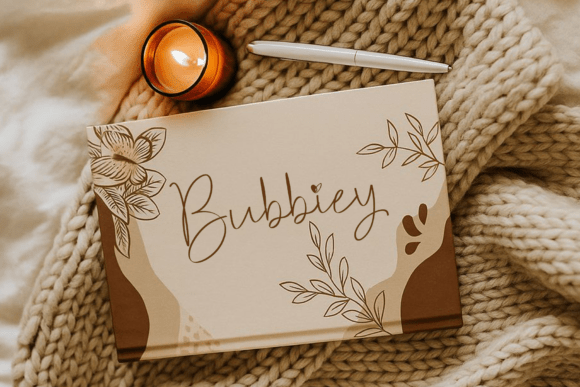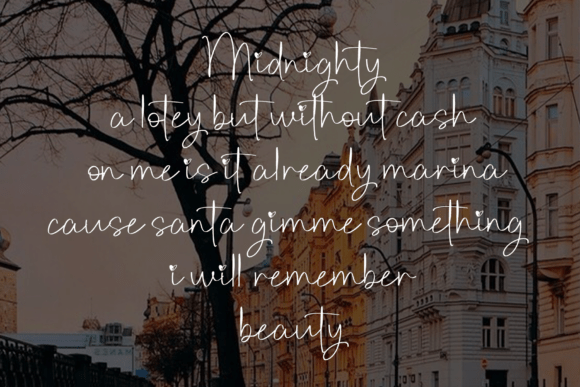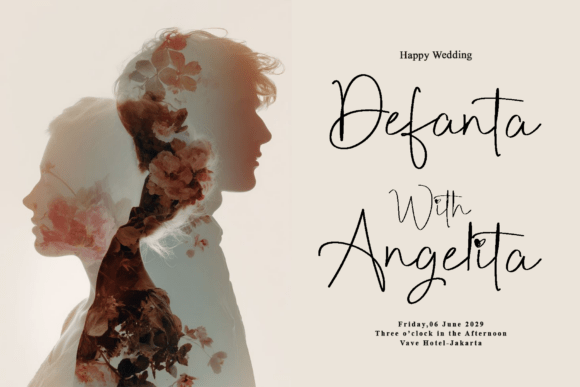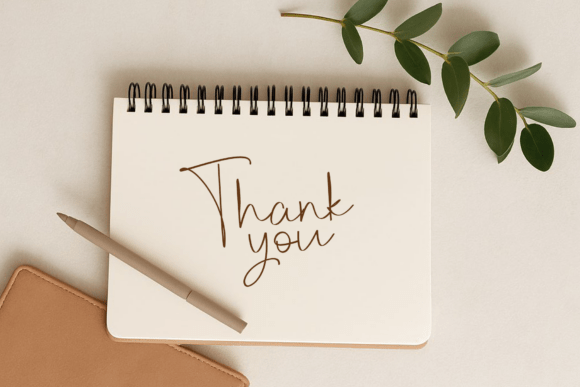
Introducing Handwritten Saturday Font: A Timeless Choice for Designers and Crafters
Are you tired of using generic fonts that lack personality and flair? Look no further than Handwritten Saturday Font, a lovely and timeless handwritten font that’s perfect for creating eye-catching logos, branding, and quotes. With its unique and beautiful touch, this font is sure to make your design come alive!
The Beauty of Handwritten Saturday Font
Handwritten Saturday Font is a carefully crafted font that boasts a distinctive, hand-written feel. Every letter has been meticulously designed to showcase a unique and beautiful touch, making it perfect for designers and crafters looking to add a personal touch to their work. Whether you’re creating a logo, branding materials, or quotes, this font is sure to impress.
Why Choose Handwritten Saturday Font?
So, what sets Handwritten Saturday Font apart from other fonts on the market? Here are just a few reasons why designers and crafters love this font:
- Unique and Beautiful Touch: Every letter in Handwritten Saturday Font has been carefully crafted to showcase a unique and beautiful touch, making it perfect for creating eye-catching designs.
- Timeless Appeal: Unlike trendy fonts that quickly go out of style, Handwritten Saturday Font has a timeless appeal that will ensure your designs remain stylish for years to come.
- Versatility: Whether you’re creating logos, branding materials, quotes, or other designs, Handwritten Saturday Font is the perfect choice.
- Ease of Use: This font is easy to read and use, making it perfect for designers and crafters of all skill levels.
Handwritten Saturday Font is a versatile font that’s perfect for a wide range of design applications. Here are just a few ways designers and crafters can use this font:
- Logo Design: Create eye-catching logos that showcase your brand’s personality and style with Handwritten Saturday Font.
- Branding Materials: Use this font to create consistent branding across all your marketing materials, from business cards to brochures.
- Quote Design: Add a personal touch to your quotes and sayings with Handwritten Saturday Font.
- Crafting Projects: Use this font to add a personal touch to your crafting projects, from scrapbooking to card making.
Tips for Using Handwritten Saturday Font
To get the most out of Handwritten Saturday Font, here are a few tips to keep in mind:
- Use it Sparingly: While Handwritten Saturday Font is beautiful, it can be overwhelming if used too much. Use it sparingly to add a touch of personality to your designs.
- Pair it with Other Fonts: Experiment with pairing Handwritten Saturday Font with other fonts to create a unique and visually appealing design.
In conclusion, Handwritten Saturday Font is a lovely and timeless handwritten font that’s perfect for designers and crafters looking to add a personal touch to their work. With its unique and beautiful touch, this font is sure to make your design come alive! Whether you’re creating logos, branding materials, quotes, or other designs, Handwritten Saturday Font is the perfect choice.